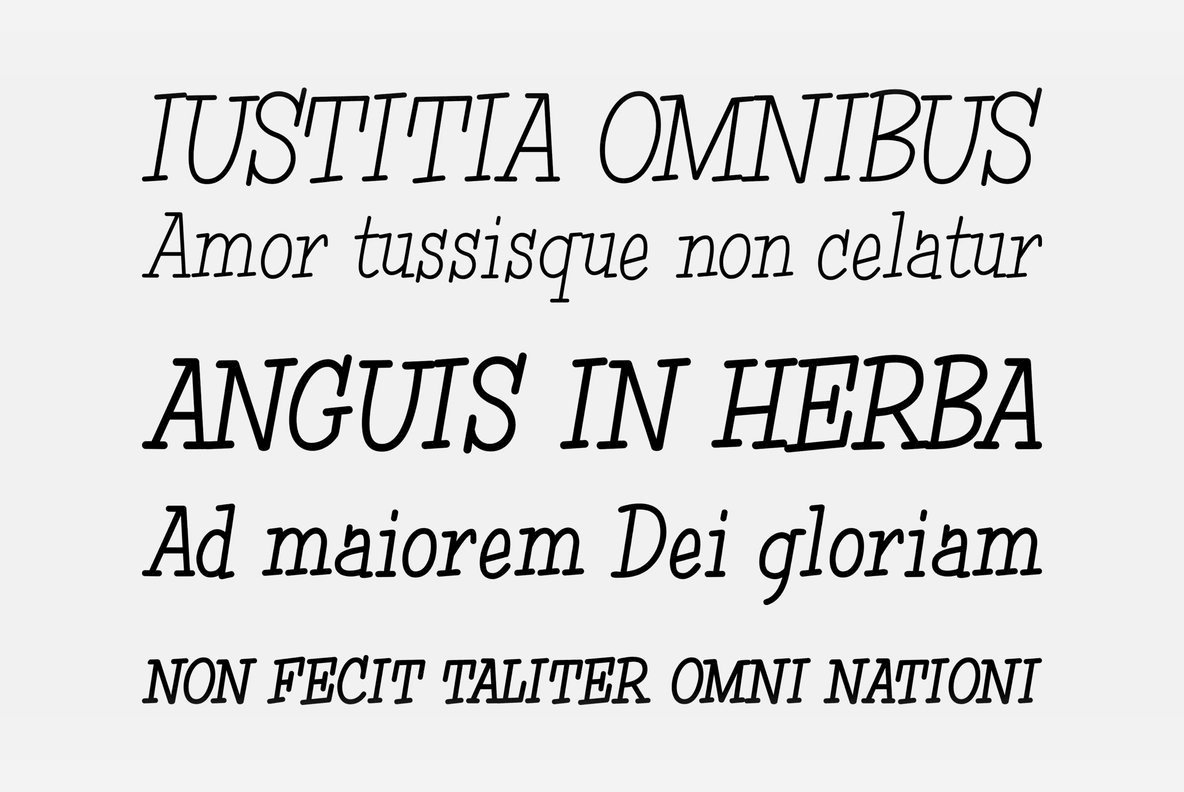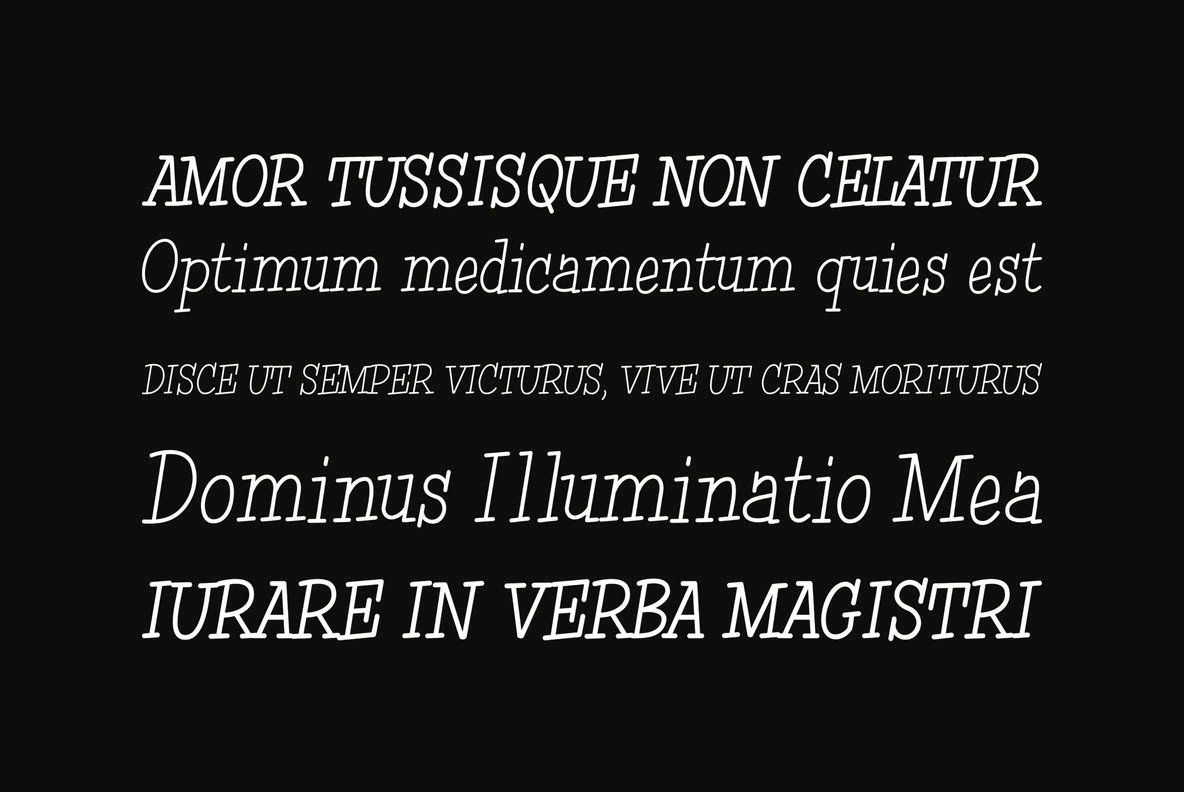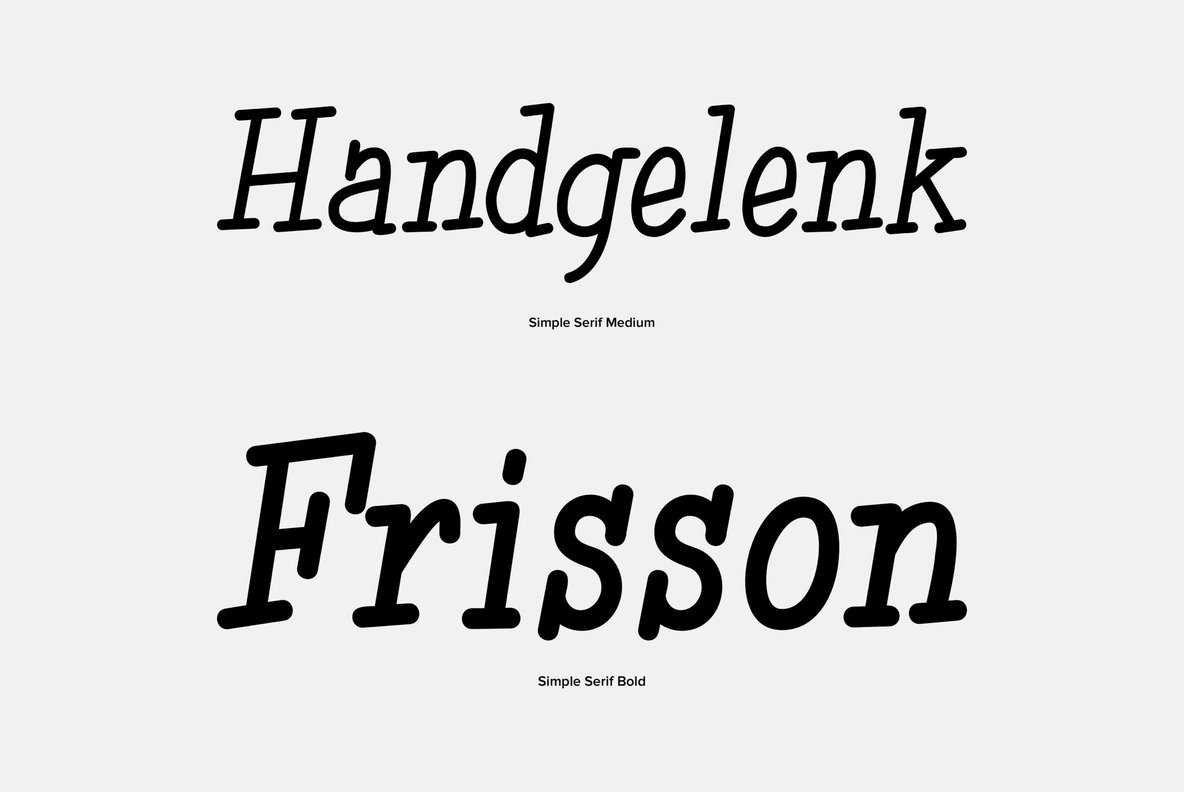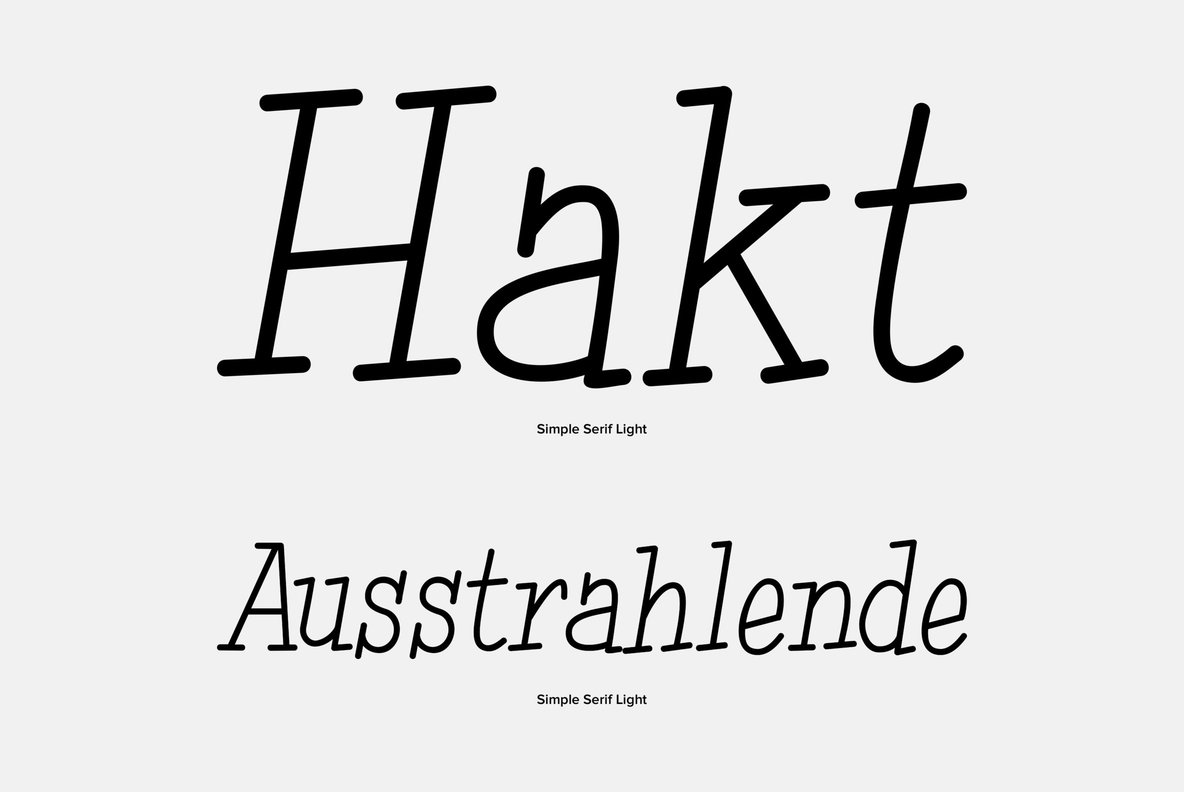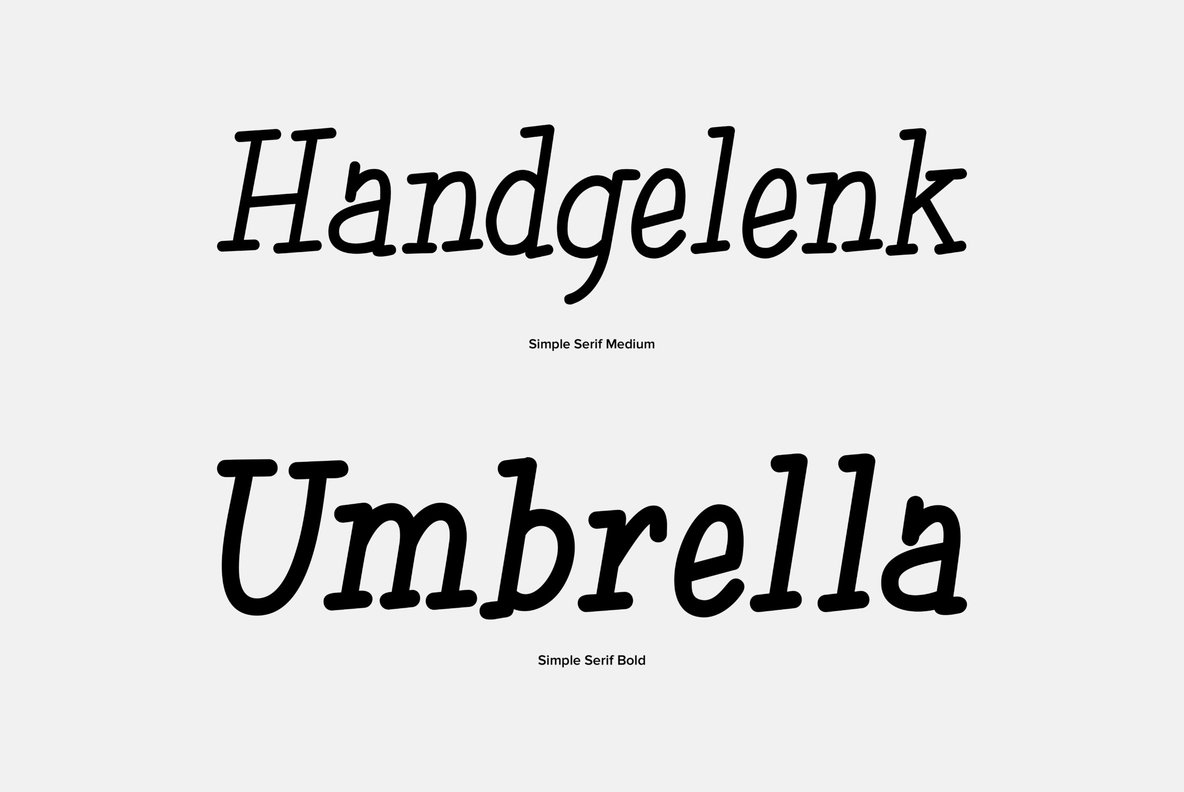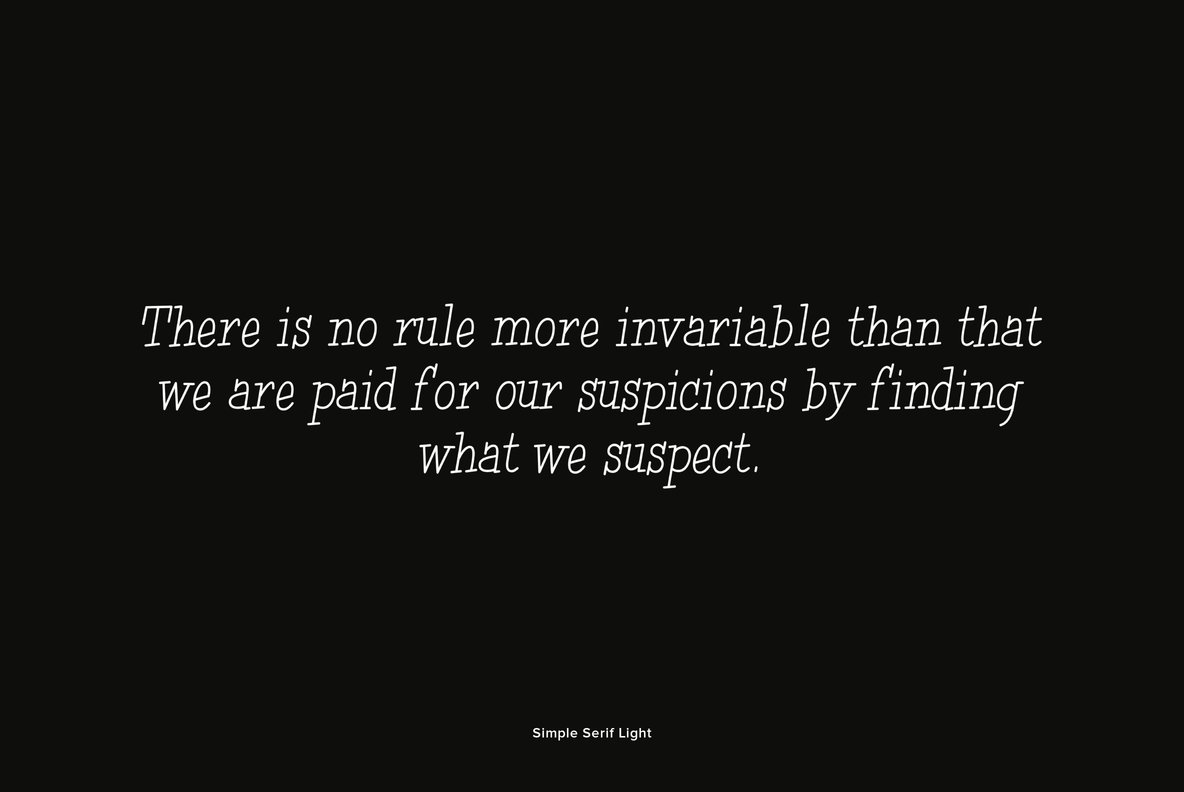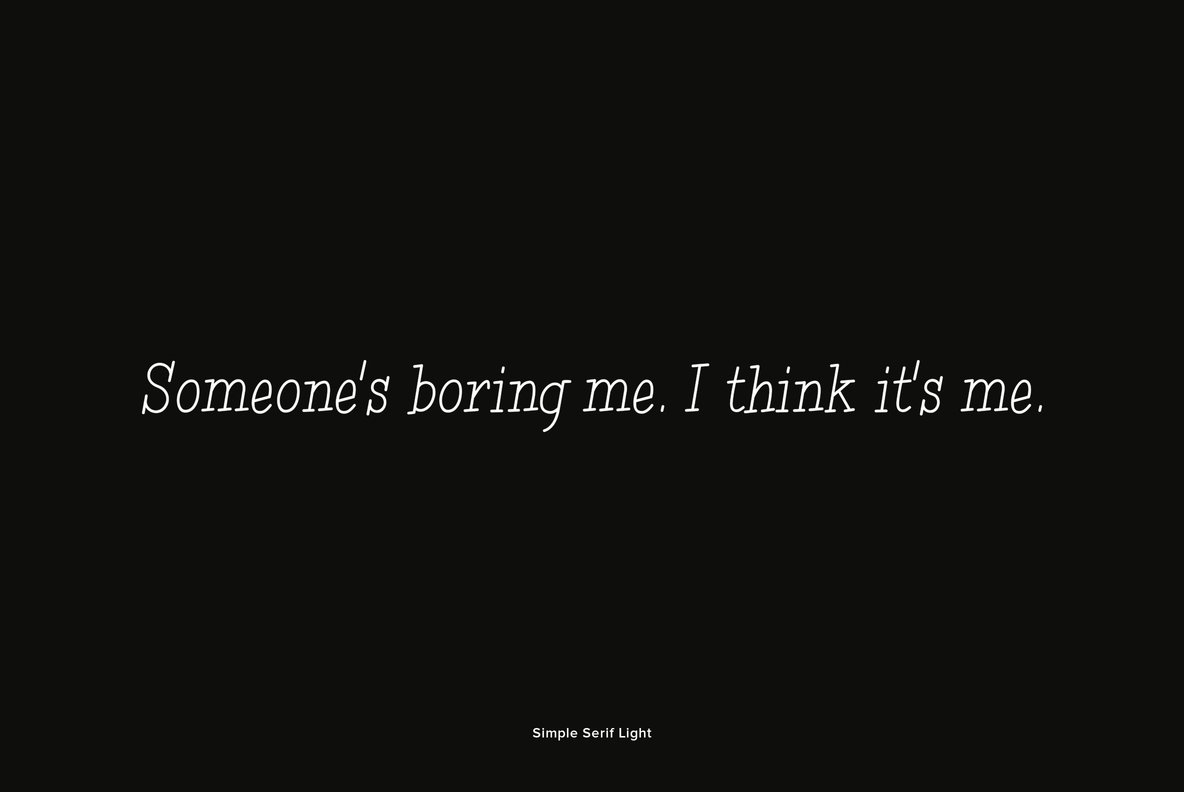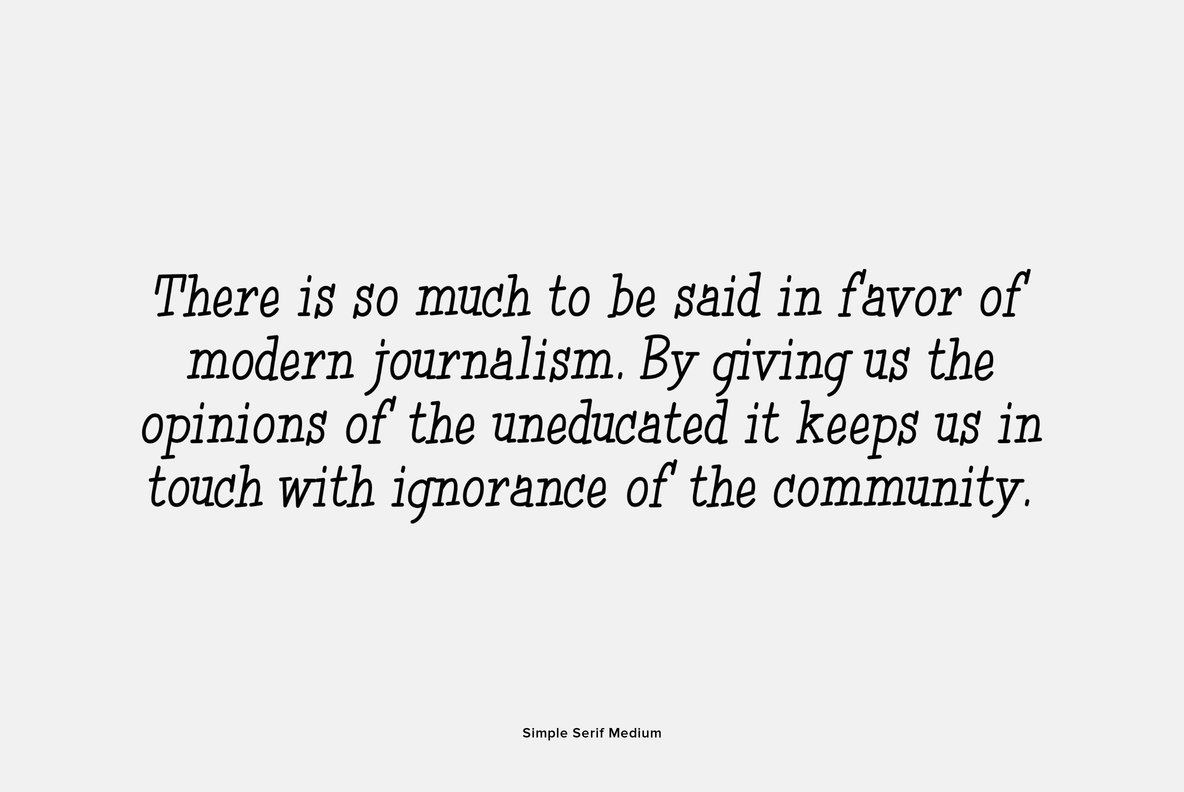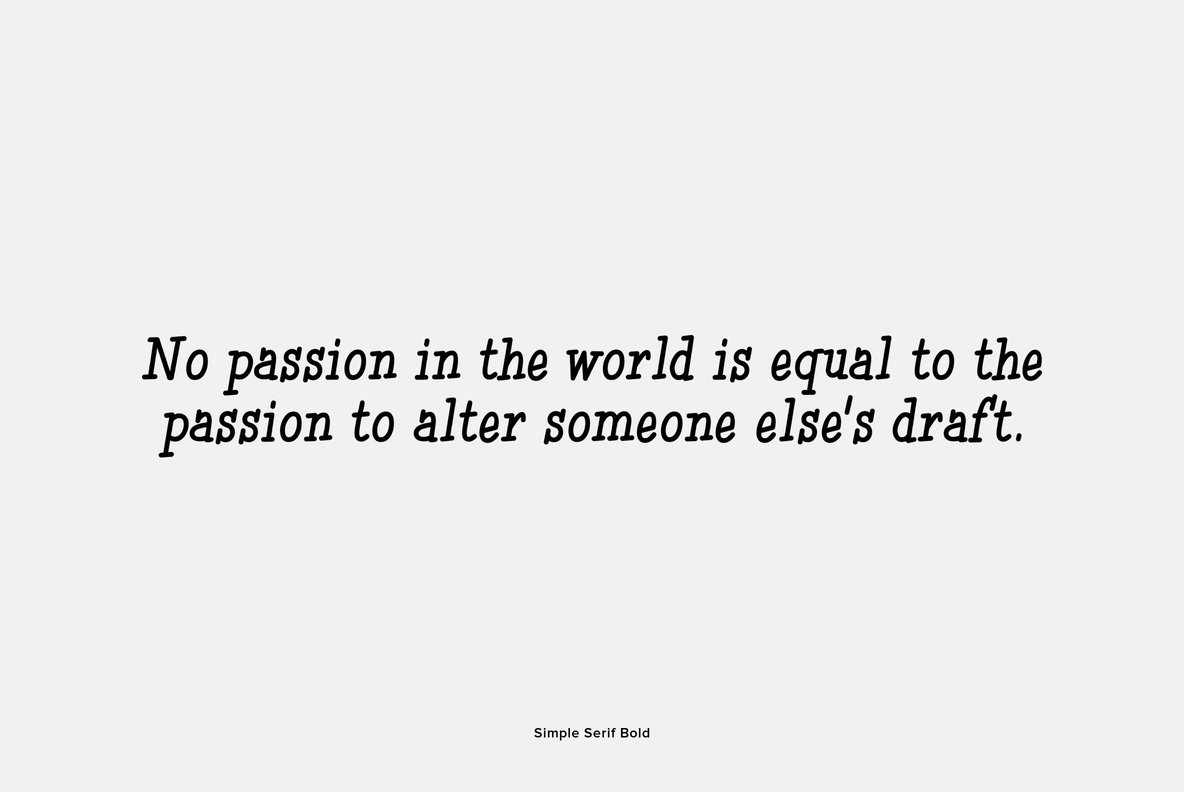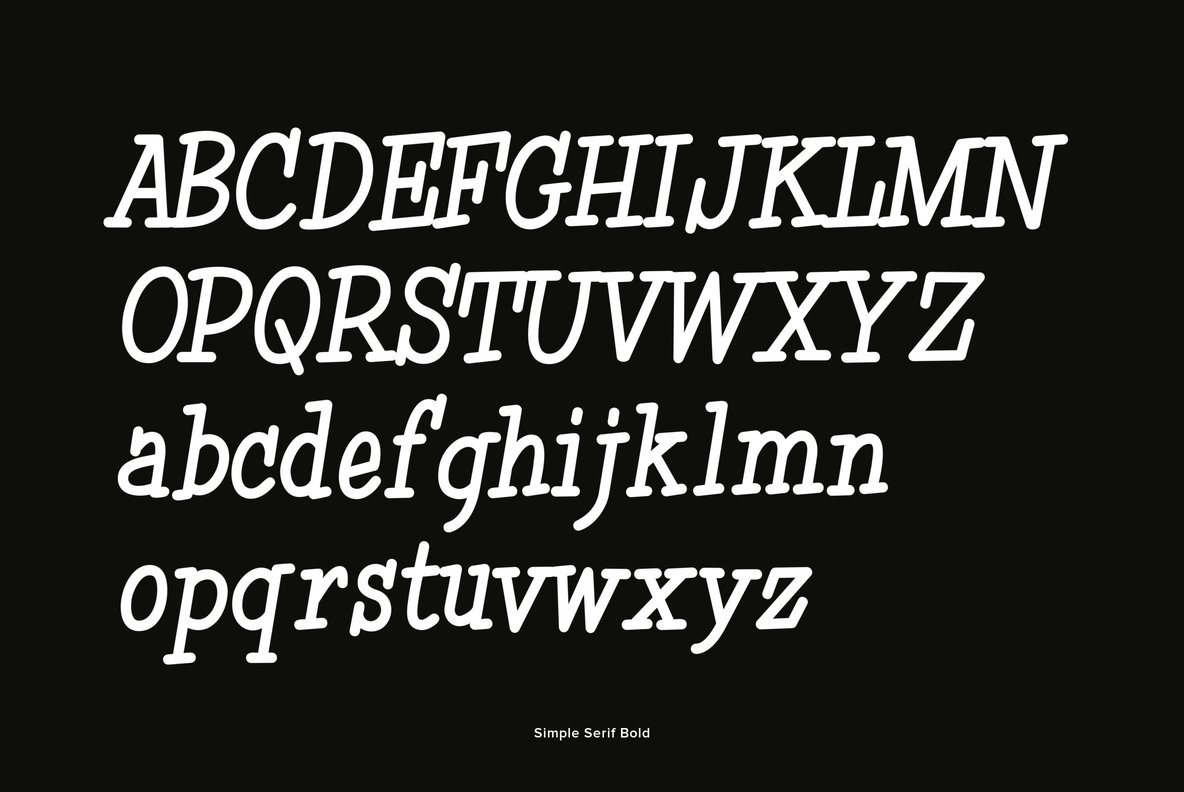
Simple Serif Font
The Simple Serif fonts are designed as hand-lettered serif fonts. They are casual and informal and are ideal for use in conveying these qualities.
Gerald Gallo is a professional graphic designer.While designing trademarks and logotypes, Gerald often designed unique lettering. It was a natural step to create entire alphabets from some of these designs. However, it was very difficult to have a font produced before the advent of the personal compute...